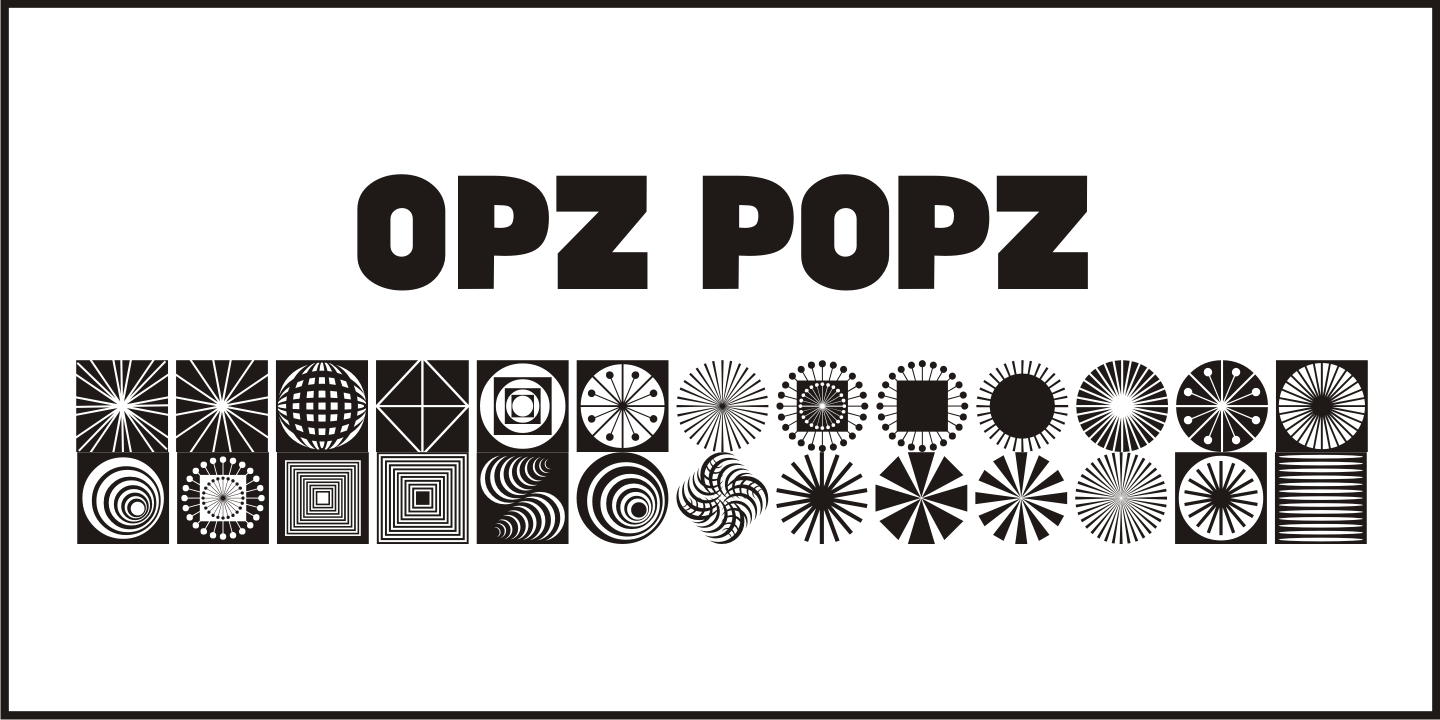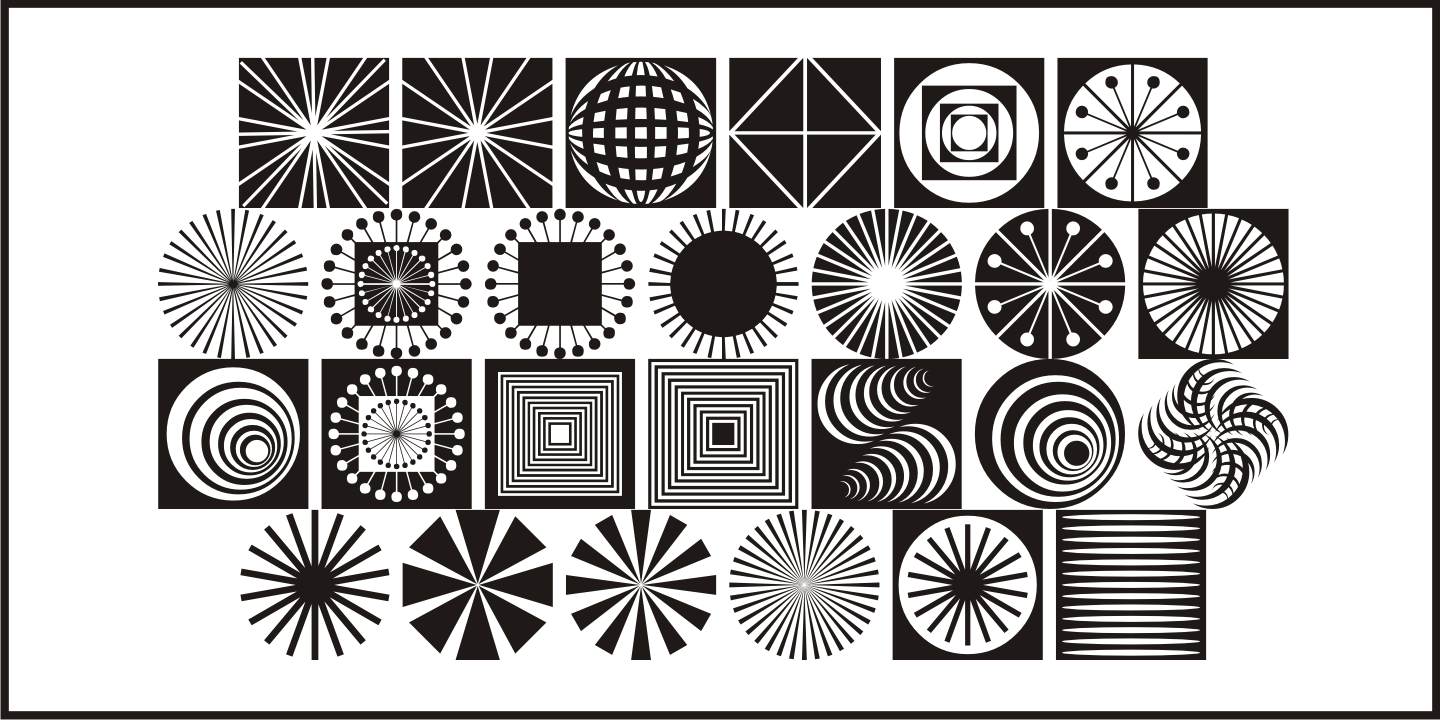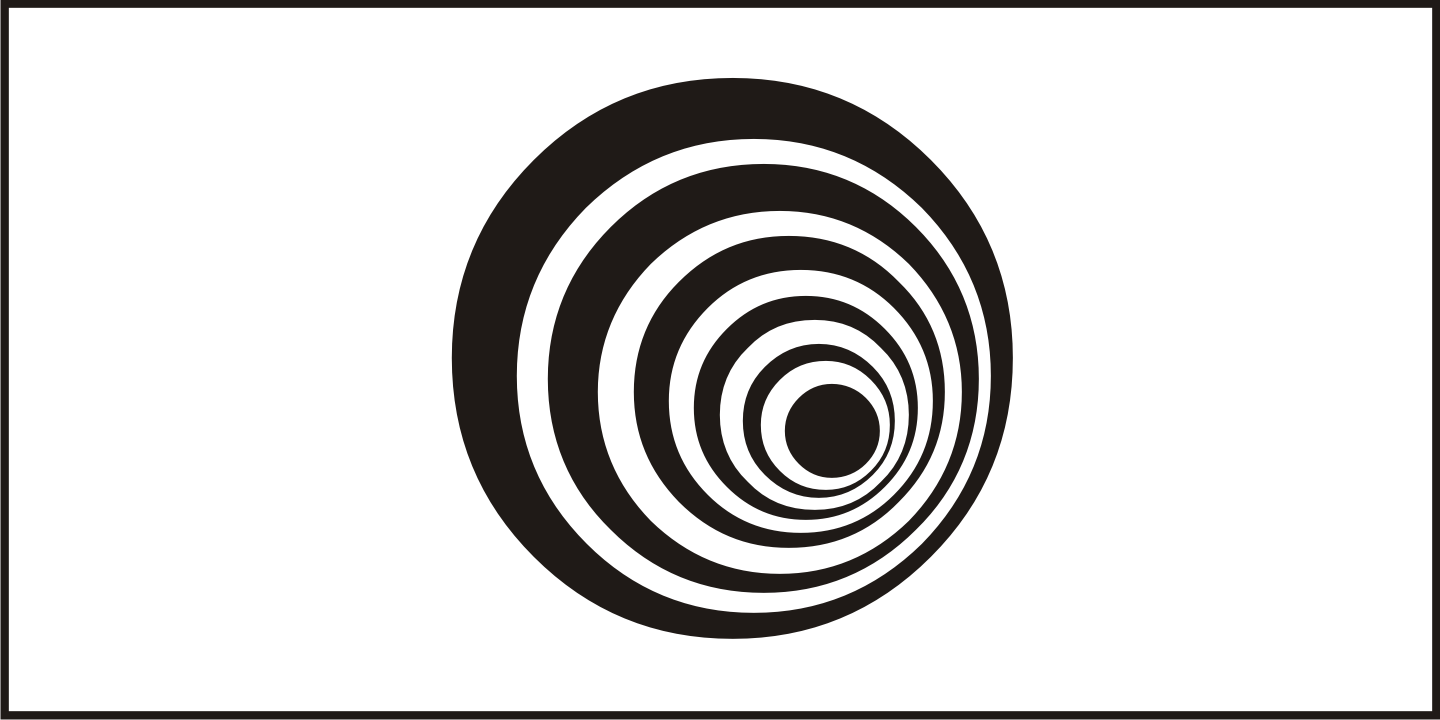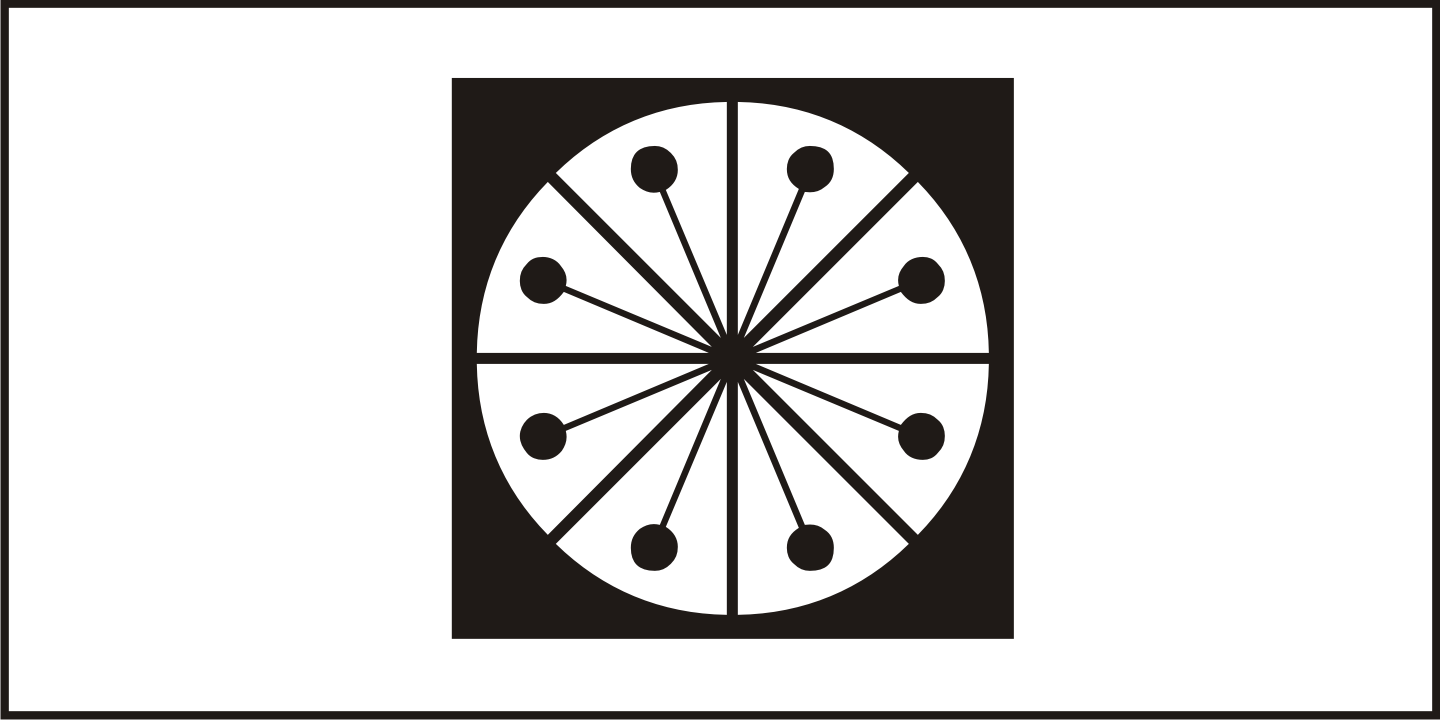
Opz Popz
Opz Popz JNL is a collection of fifty-two designs based on geometric designs and pop art (reminiscent of the 1960s). These images are perfect embellishments for retro-themed work projects.